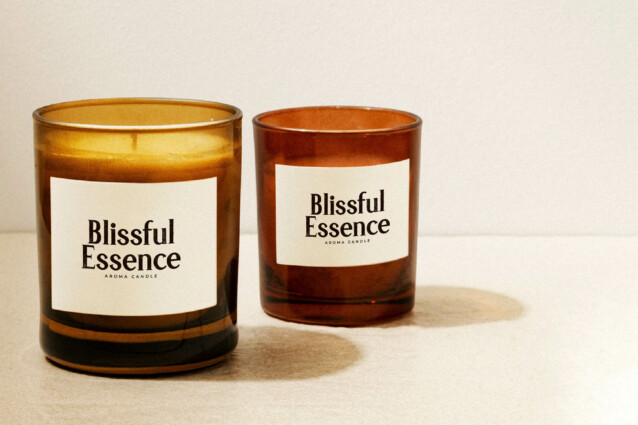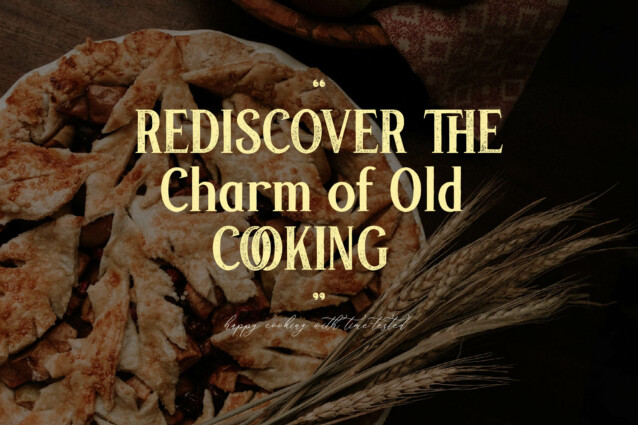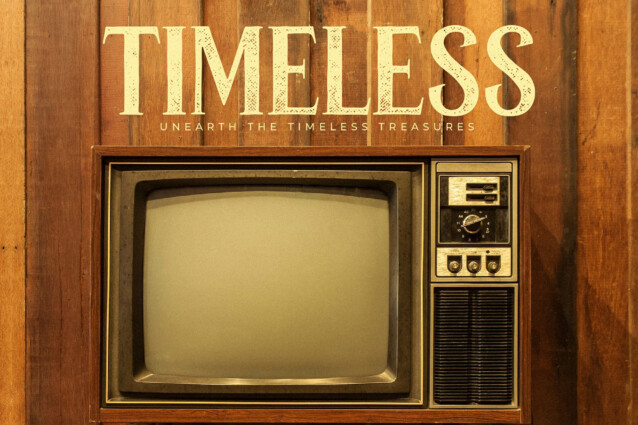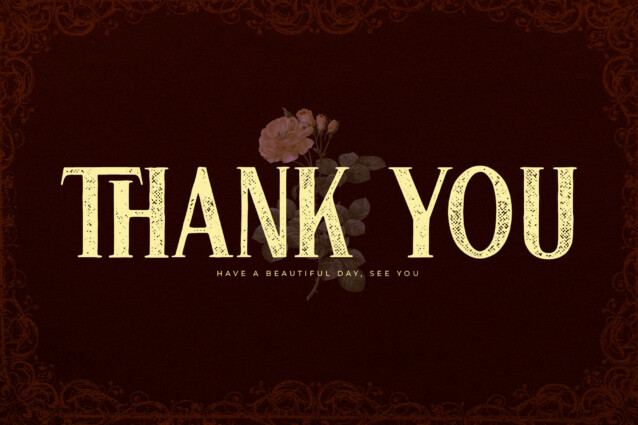
The Boqke Font
The Boqke Font is a serif modern and classic typeface that has own unique style & modern look. This typeface is perfect for an elegant & luxury logo, book or movie title design, fashion brand, magazine, clothes, lettering, quotes, and so much more.